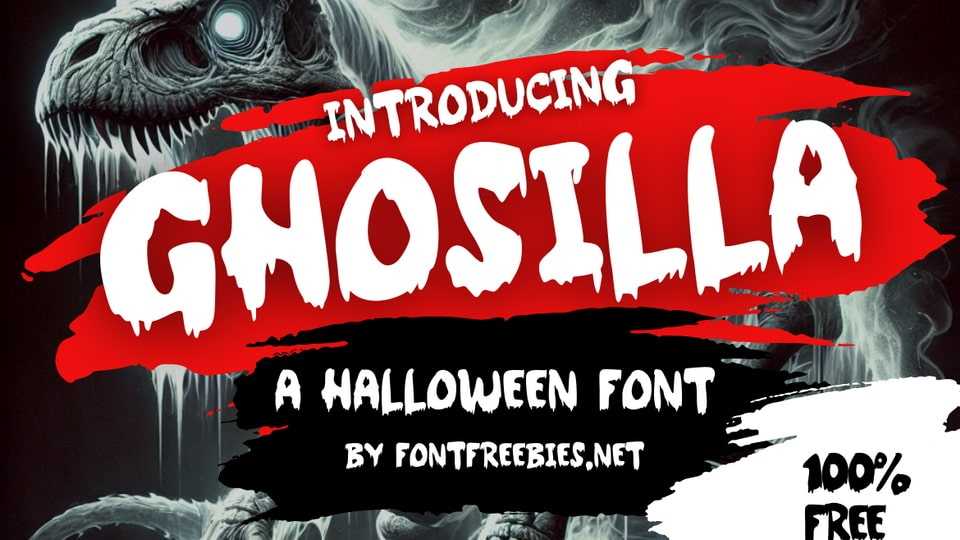
Download Ghosilla font, a fierce, edgy Halloween-themed typeface that channels the power of mythical creatures, perfect for creating striking, eye-catching Halloween visuals.